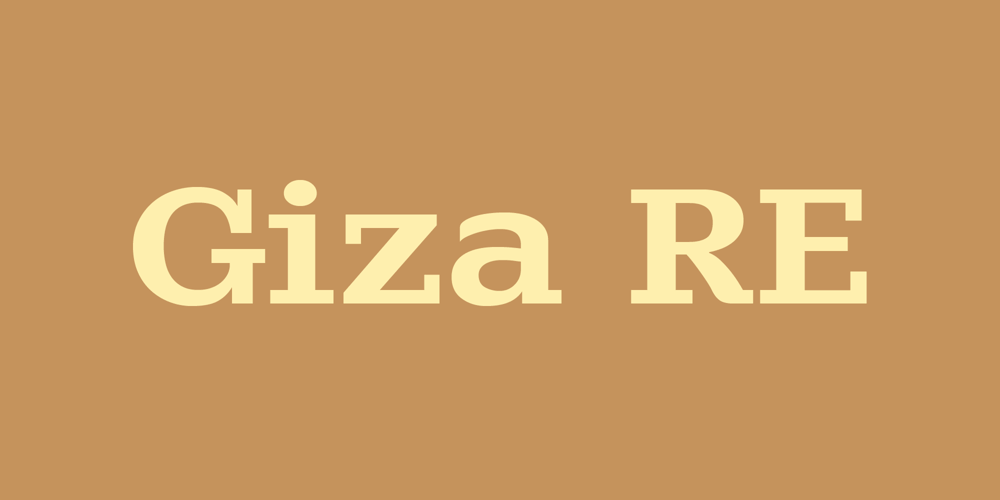
Giza RE Font Family was designed by David Berlow and published by Font Bureau. Giza RE contains 4 styles and family package options. Giza brings back the colorful power and variety of the original Egyptian letterforms, a glory of the Victorian era. Designer David Berlow based the family on showings in Vincent Figgins’ specimen of 1845, the triumphant introduction of this thunderous style. This version of the family is part of the Reading Edge series of fonts specifically designed for small text onscreen, having been adjusted to provide more generous proportions and roomier spacing, and having been hinted in TrueType for optimal rendering in low resolution environments.